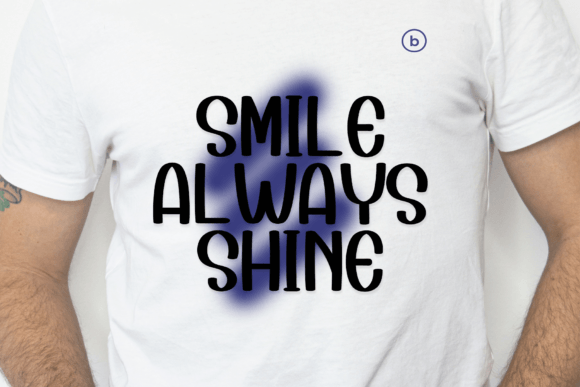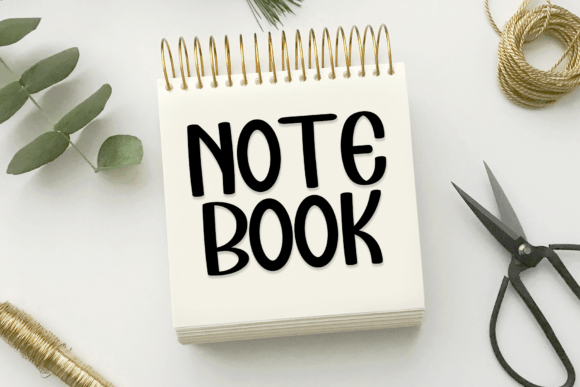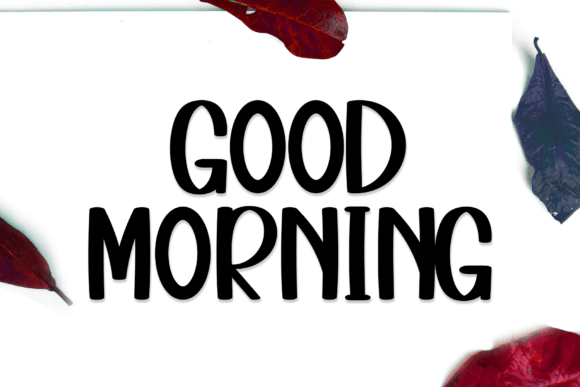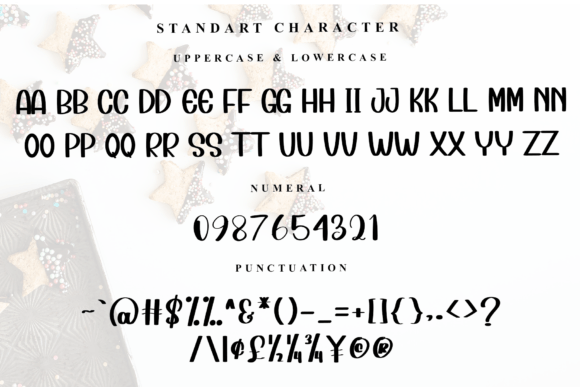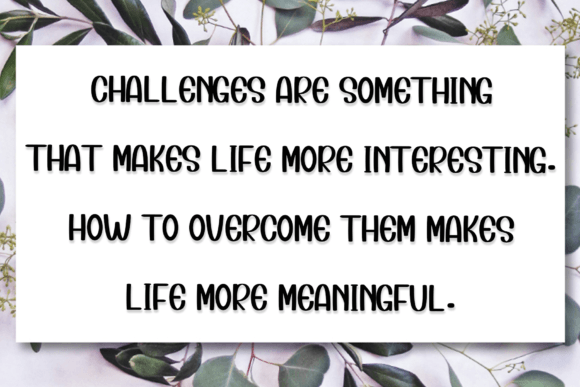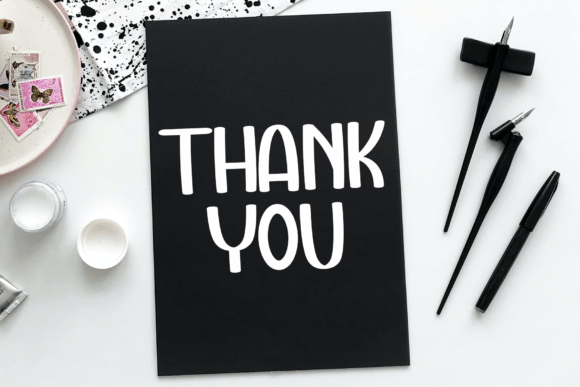
Unlocking the Art of Handwritten Typography
As a designer, you’ve probably experienced that moment when a project’s message just isn’t quite coming together – until you stumble upon the perfect font. It’s like a lightbulb moment, and suddenly everything falls into place. For me, it was discovering the Bundle Font. This stylish handwritten font is more than just a pretty face – it’s a thoughtful, well-crafted tool designed to elevate your creative projects.
The Bundle Font is a masterclass in balance and variation, with a timeless classic calligraphy feel that’s both sophisticated and approachable. Its PUA encoding makes it easy to access the amazing glyphs and ligatures, giving you the freedom to experiment and push your design boundaries. Whether you’re a seasoned pro or just starting out, the Bundle Font is an invaluable addition to your toolkit – and a great way to add some personality to your work.
Key Features of Bundle Font
Bundle Font Review
Overall, I’m impressed with Bundle Font’s unique style and versatility. It’s a great choice for designers looking to add a touch of sophistication to their projects. ✨ The font’s clean lines and modern aesthetic make it perfect for digital designs, from websites to mobile apps.
Here are some of the things I like about Bundle Font:
- Its excellent legibility makes it easy to read even at small font sizes.
- The font’s extensive character set includes a wide range of languages and symbols.
- Bundle Font is highly customizable, allowing designers to adjust the weight, width, and style to suit their needs.
- ⚠️ The font’s condensed style can make it difficult to read in certain contexts.
- ⚠️ Some users may find the font’s modern aesthetic too trendy or overused.
- ⚠️ Bundle Font is not as well-suited for traditional print designs, where a more classic font style may be preferred.
Overall, I think Bundle Font is a solid choice for designers looking for a modern, versatile font. With its excellent legibility and customization options, it’s a great addition to any design project. However, it’s not perfect, and designers should be aware of its limitations before making a final decision.